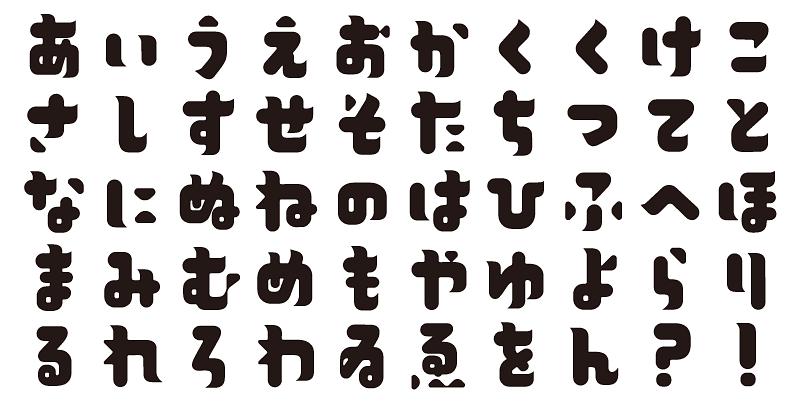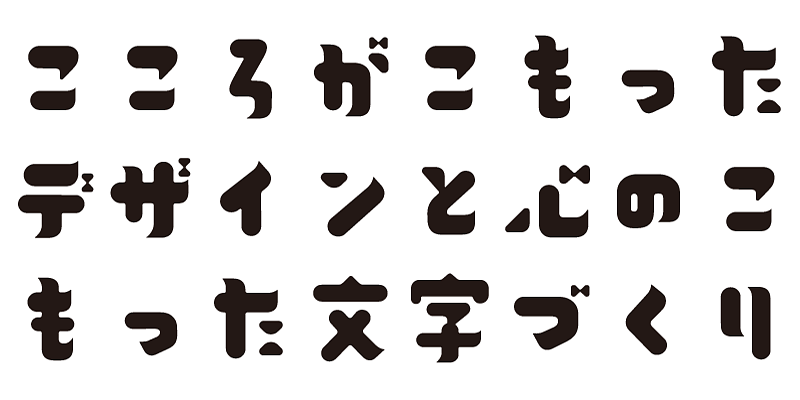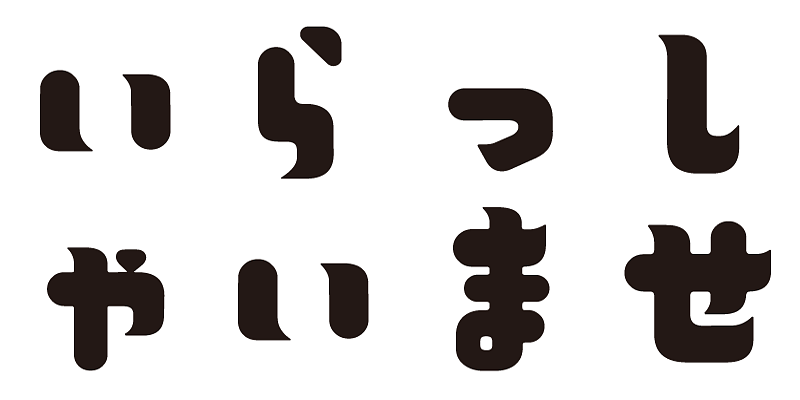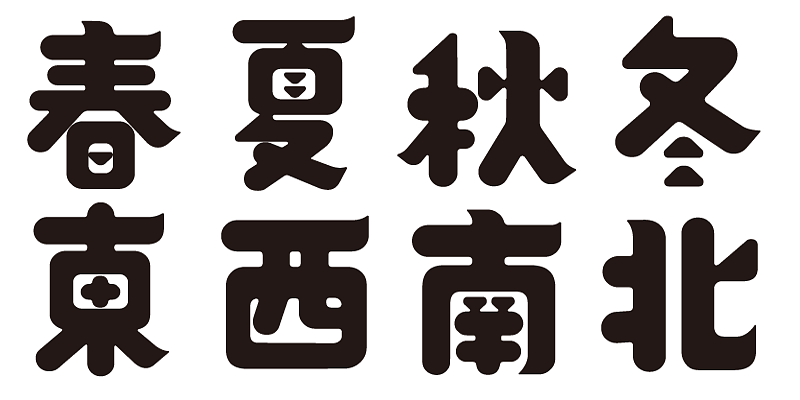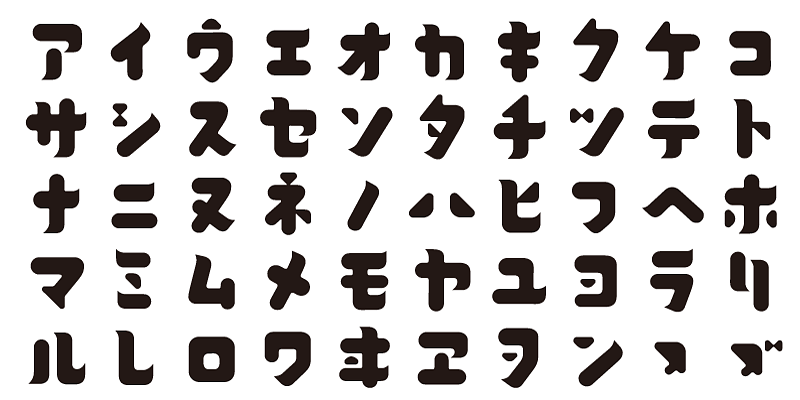
This is a typeface with a heartwarming design.
Each font in this typeface family includes 1,000 kanji characters, as well as hiragana, katakana, alphanumeric characters, and punctuation marks.
We design typefaces with the hope that they will add underlying meaning to words expressed. We wish the user to feel good and experience comfort and joy when using these typefaces.